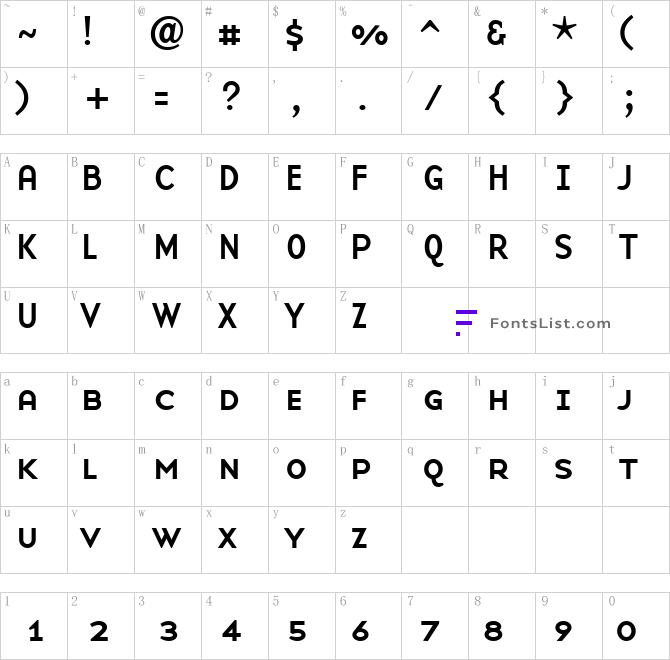
- Font Name:BaseNineSmallCaps
BaseNineSmallCaps-Regular.ttf is a very beautiful artistic font, BaseNineSmallCaps-Regular.ttf is widely used in the design and printing of various books and pictures,BaseNineSmallCaps-Regular.ttf has a strong visual impact,BaseNineSmallCaps-Regular.ttf is a commonly used font in newspapers, magazines and books, and is used in posters, e-commerce Poster design, store design, logo design, font design and other fields.BaseNineSmallCaps-Regular.